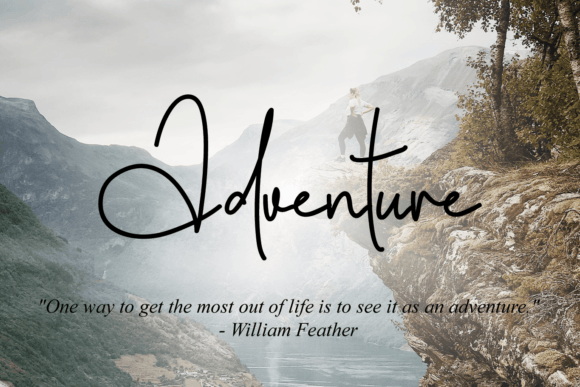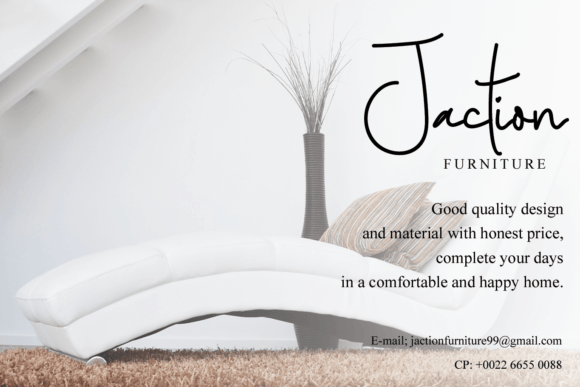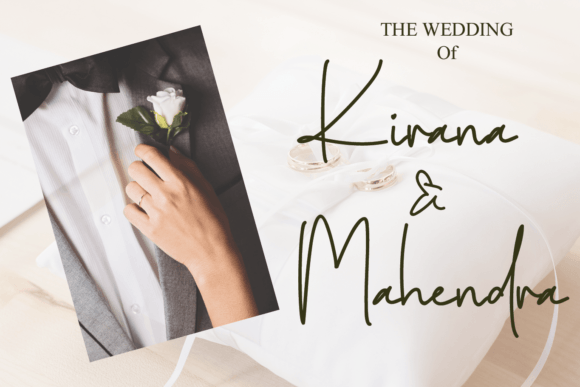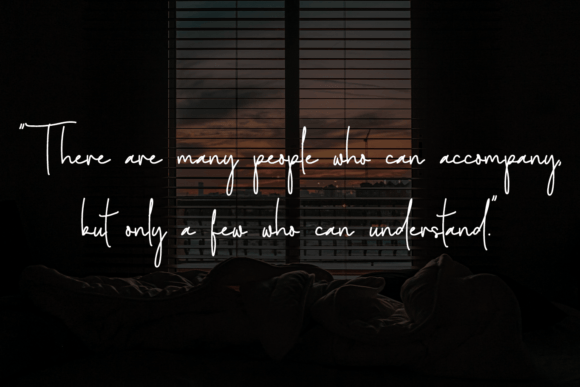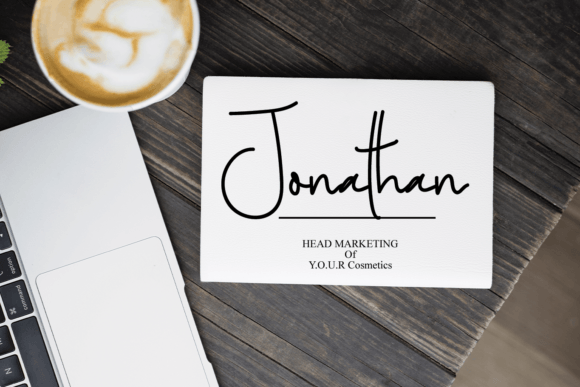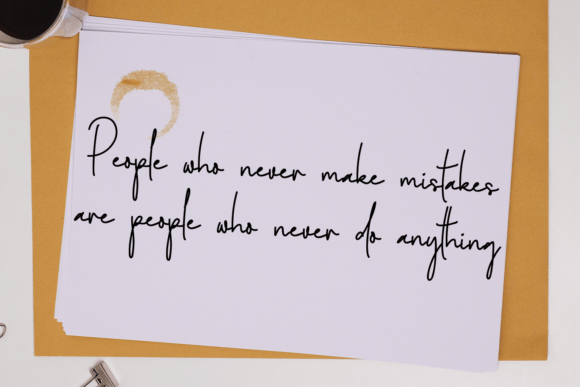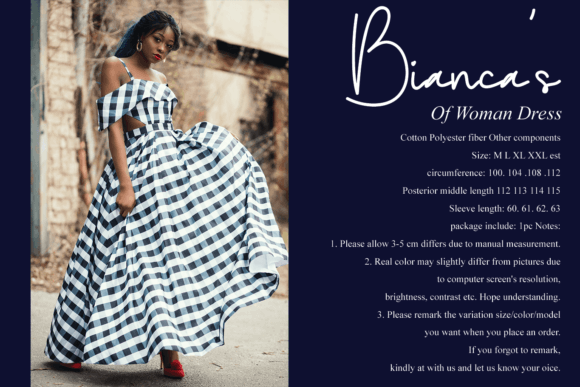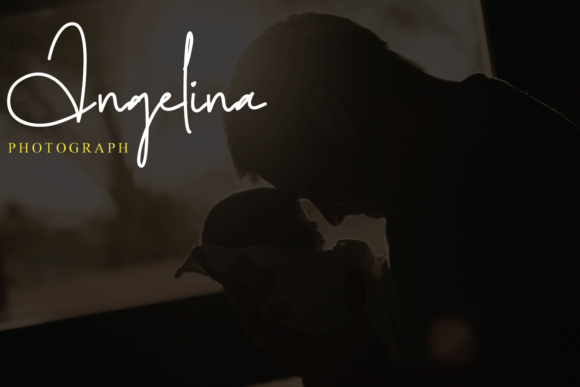
Creative Diary Font
“Creative Diary Font: Exquisite Handwritten Elegance with Contemporary Freshness
Introducing Creative Diary, an exquisite handwritten font masterfully designed to capture your heart and become a true favorite in your font collection. This font maintains its classy calligraphic influences while embracing a contemporary and fresh feel. Let Creative Diary inspire your creativity and add a touch of elegance to your projects.
Beyond being a font, Creative Diary is a work of art meticulously crafted to blend the timeless charm of classy calligraphy with a modern and fresh aesthetic. Its carefully designed characters exude elegance, making it an ideal choice for projects that demand a balance of sophistication and contemporary appeal.
The versatility of Creative Diary shines through in its ability to enhance the visual appeal of diverse projects. Whether you’re working on digital graphics or tangible items, Creative Diary adapts effortlessly to elevate the aesthetics of your designs.
For logo design and branding projects, Creative Diary becomes a distinctive choice, adding a touch of individuality and timeless elegance. The font’s balance of classic and contemporary elements makes it suitable for creating memorable and impactful brand identities.
In various creative endeavors, such as diary covers, stationery, and more, Creative Diary brings a sense of sophistication and freshness, making it visually appealing and engaging. Its exquisite handwritten style is versatile, allowing you to use it in a range of design applications.
In conclusion, Creative Diary is more than just a font; it’s a design companion that brings exquisite handwritten elegance with a contemporary and fresh twist to your creative toolkit. Let Creative Diary be the brushstroke that enhances the beauty of your projects. Embrace the versatility and classic yet modern charm of Creative Diary, and watch as it transforms your ideas into visually enchanting experiences.”